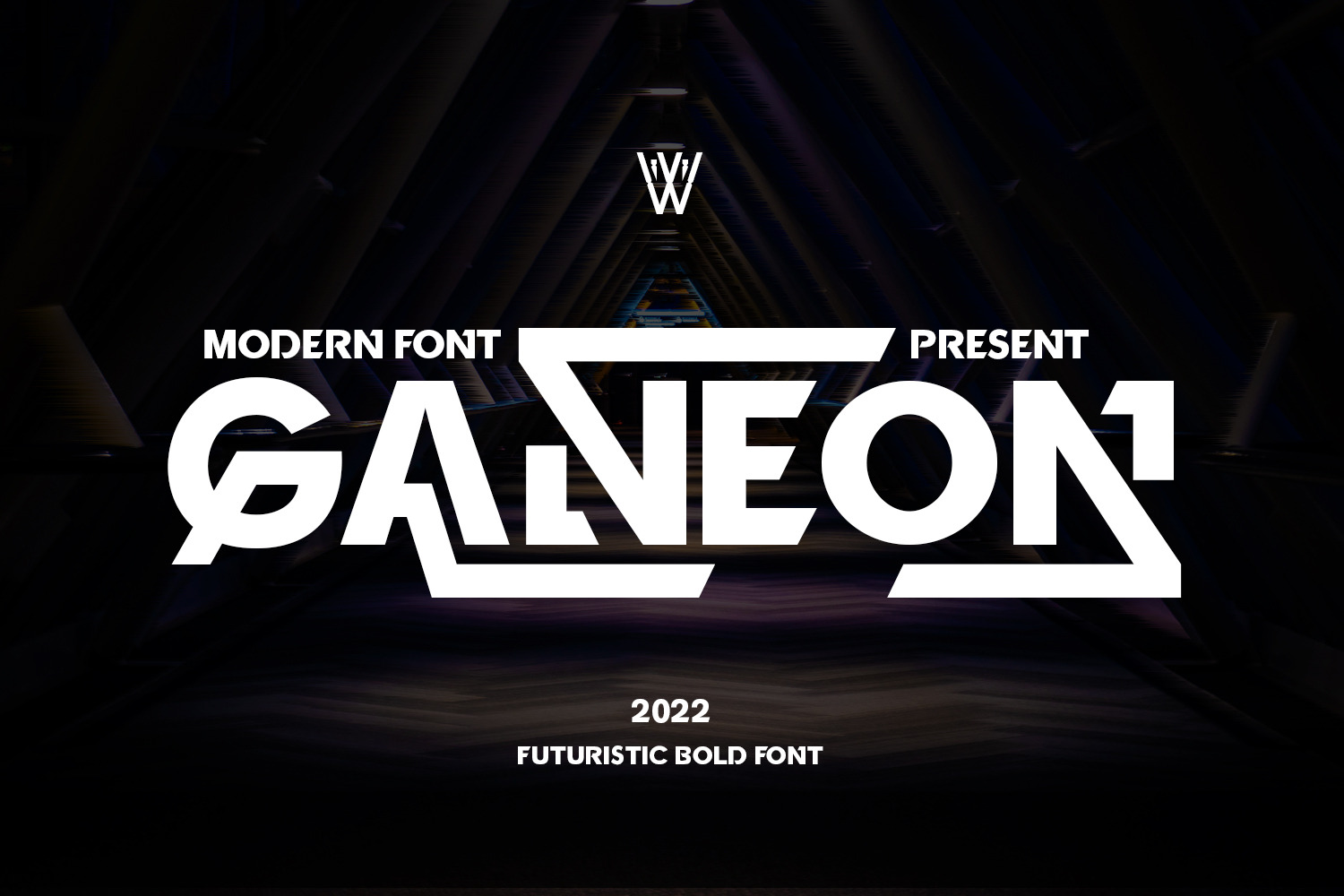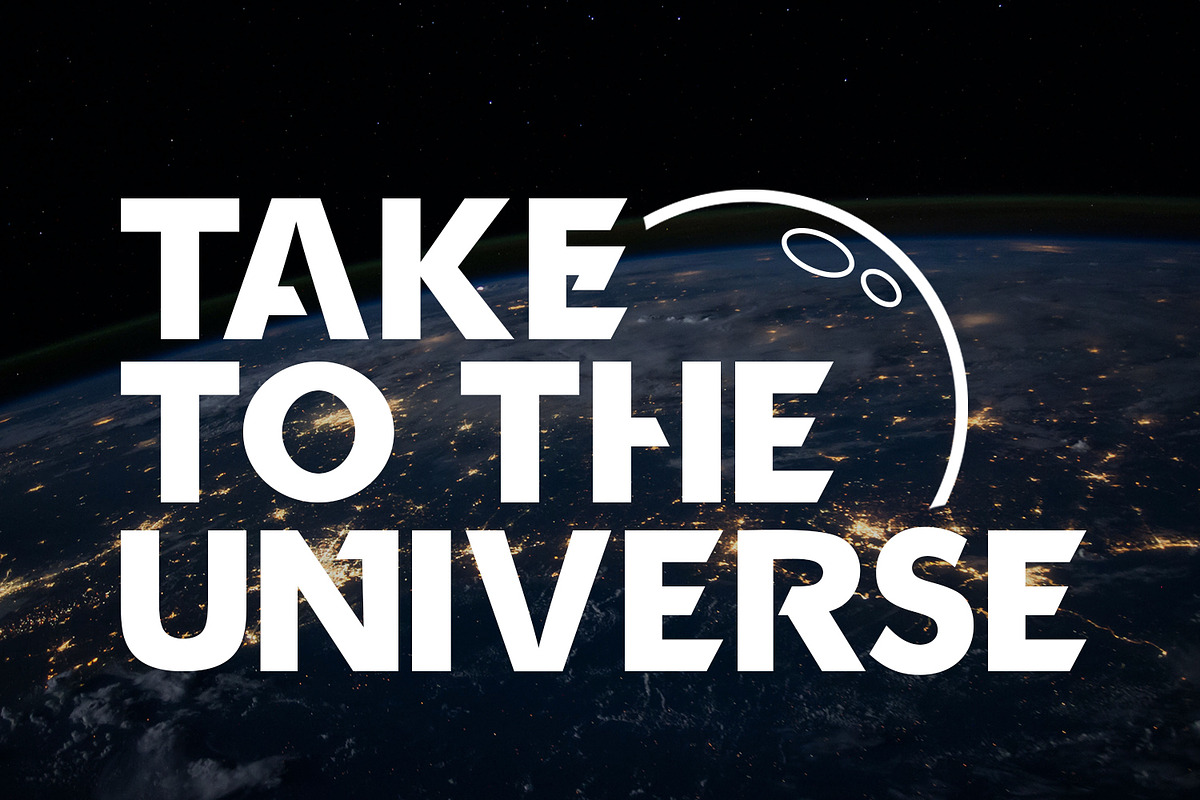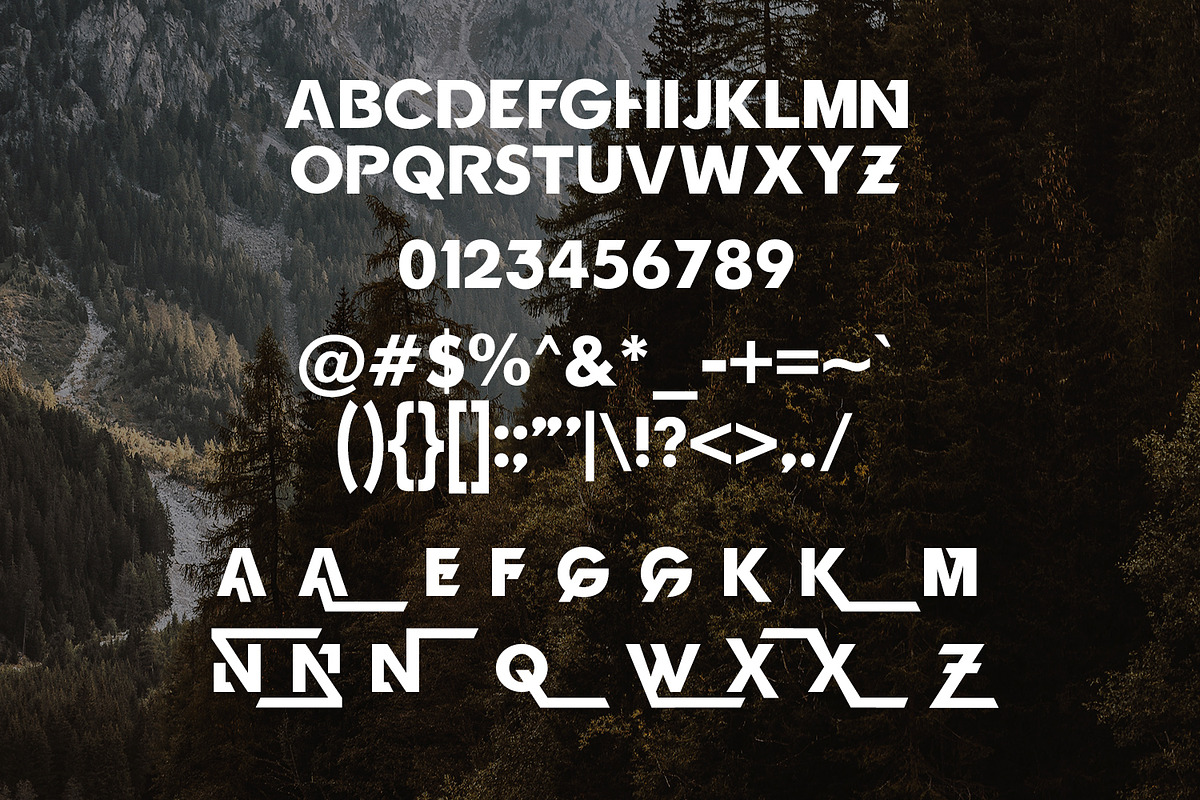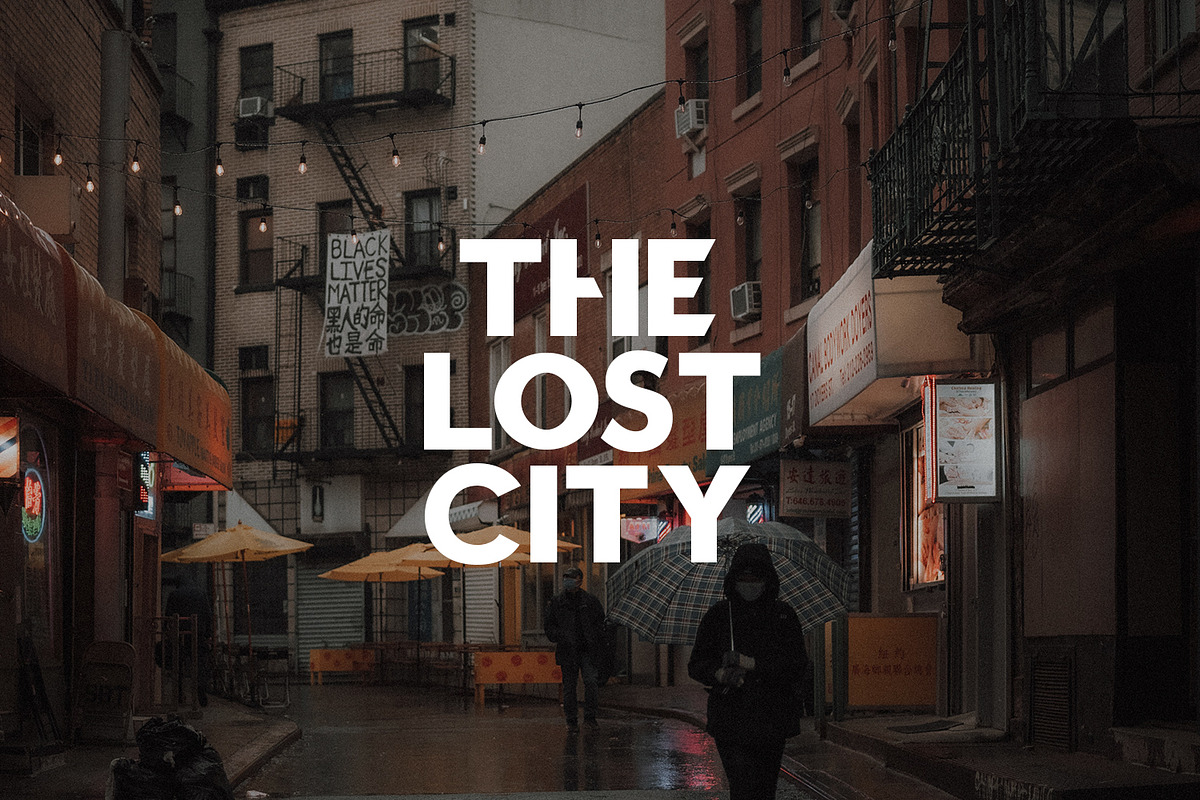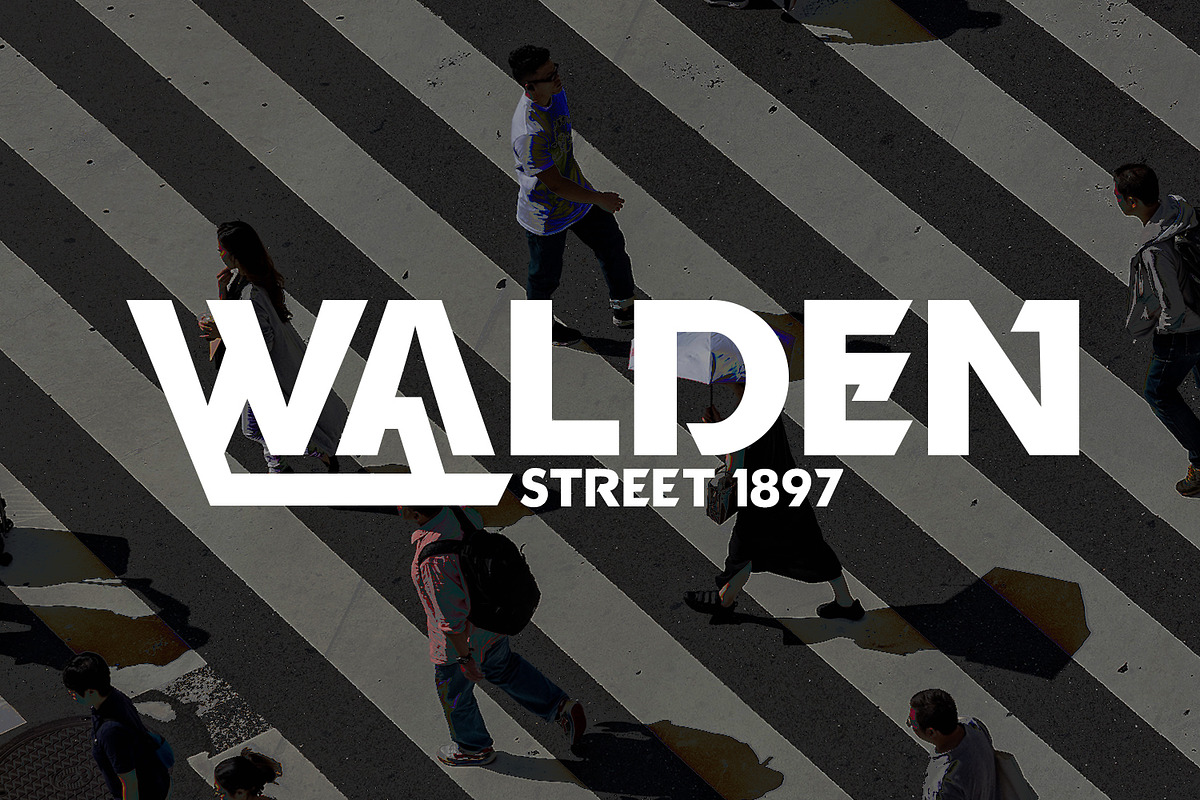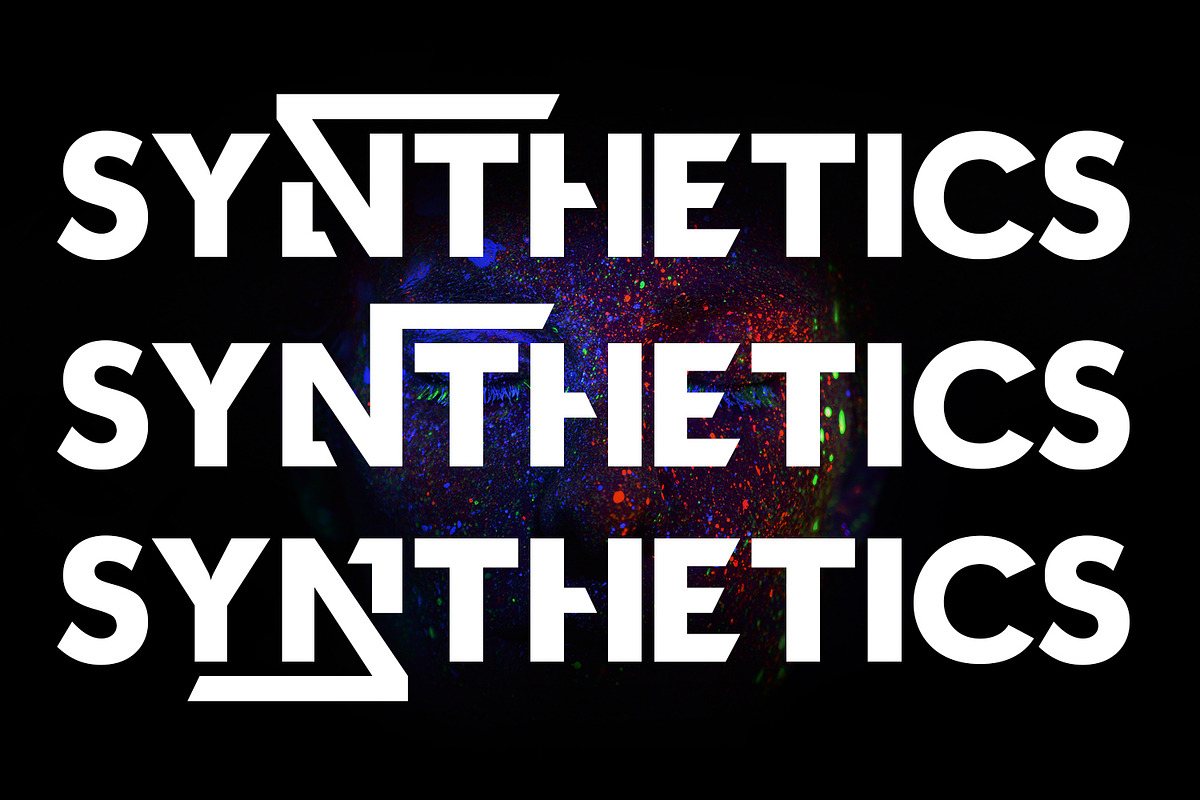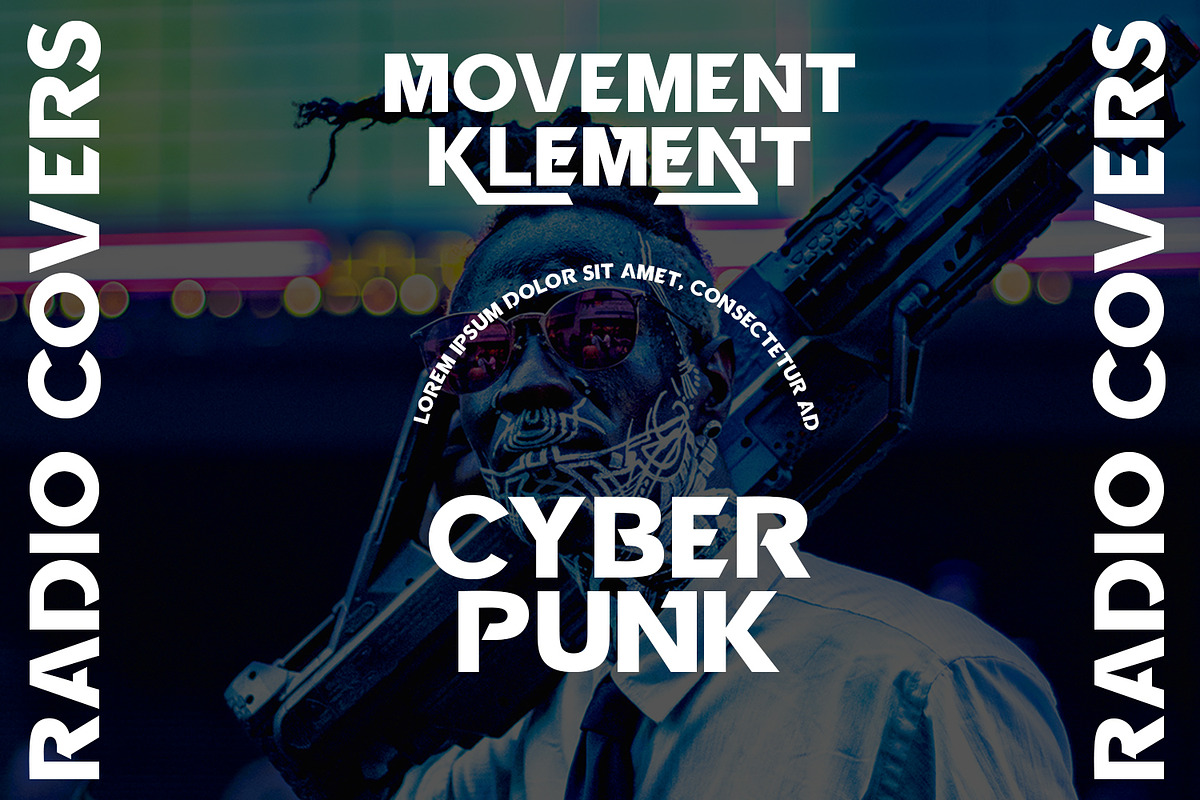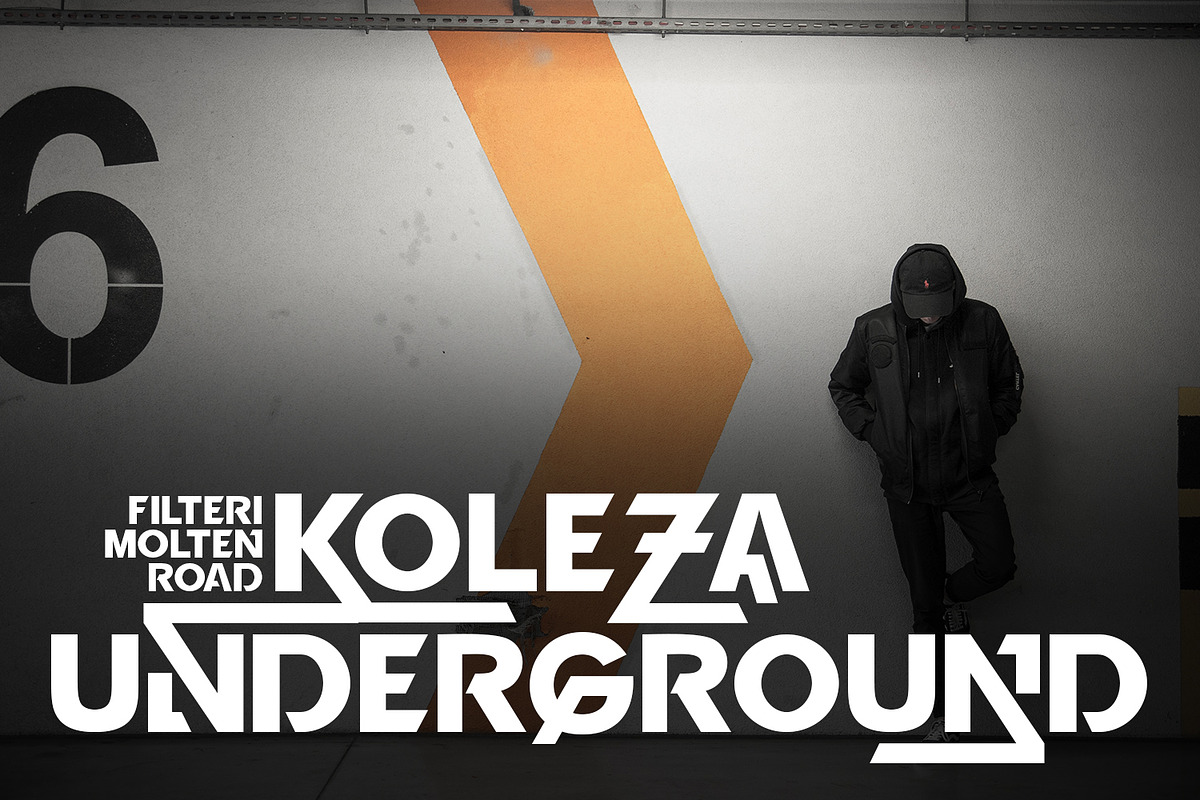
Ganeon Modern Futuristic Bold Font
The Ganeon Font is a sleek and modern typeface that embodies futuristic design with its clean lines and geometric shapes. Inspired by cutting-edge technology and innovation, this font brings a sense of sophistication and forward-thinking to any project. Whether you’re designing for sci-fi themes, tech startups, or futuristic branding, the Ganeon Font adds a touch of modernity and elegance. Its versatility and minimalist design make it perfect for digital interfaces, logos, and editorial layouts. Embrace the future of design with the Ganeon Font.